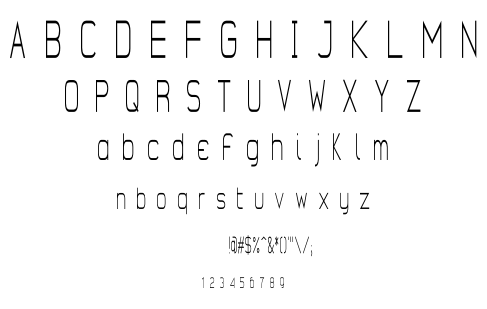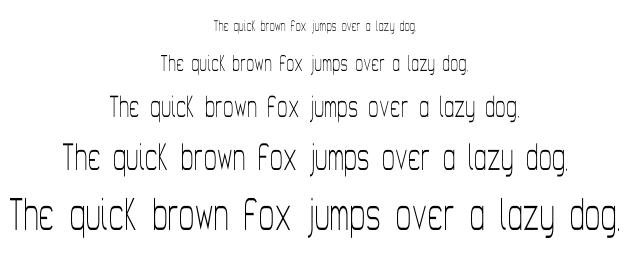
Gearus Font
Gearus typefaces are designed as a whole including history of my favorite selections of every font in the past 20 years as being a student and lately as editorial designer in publishing and adverting